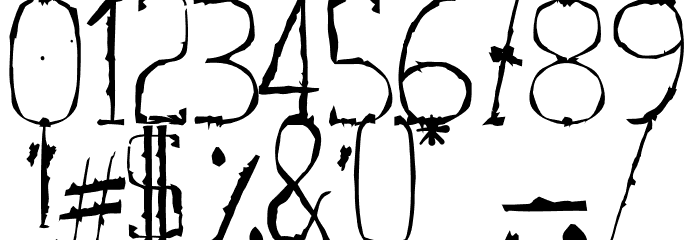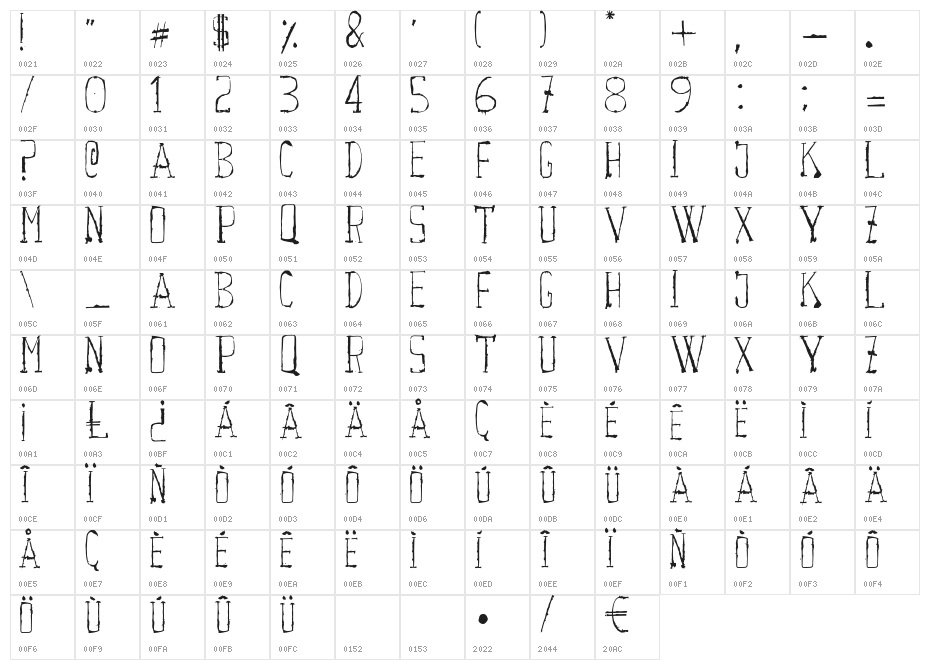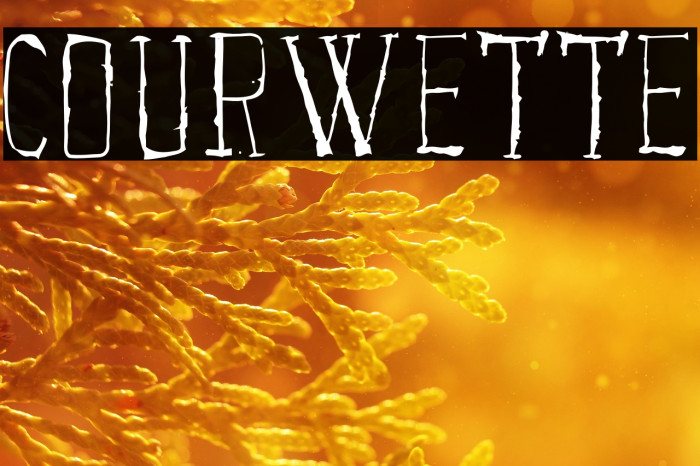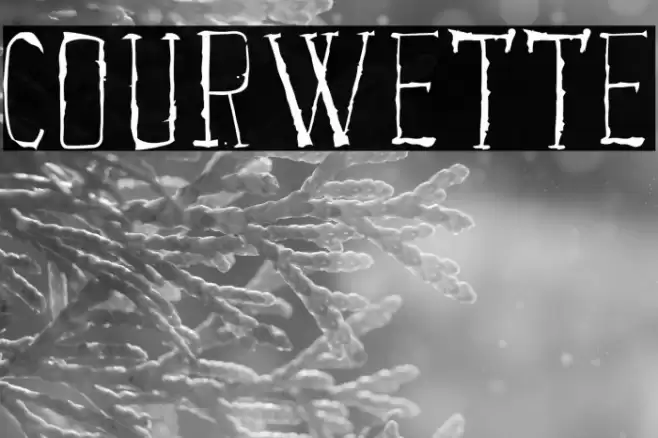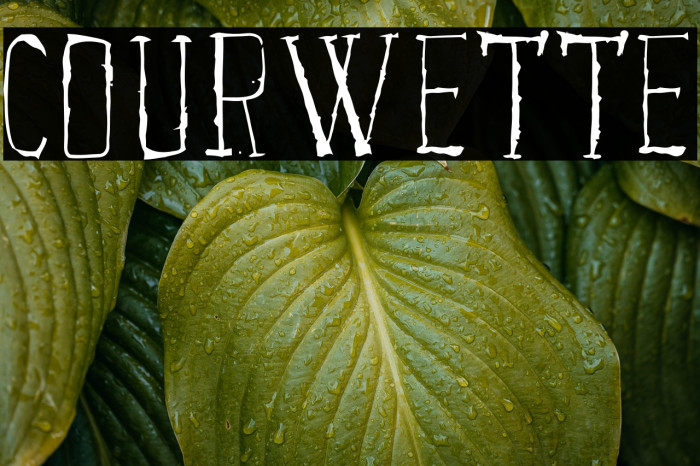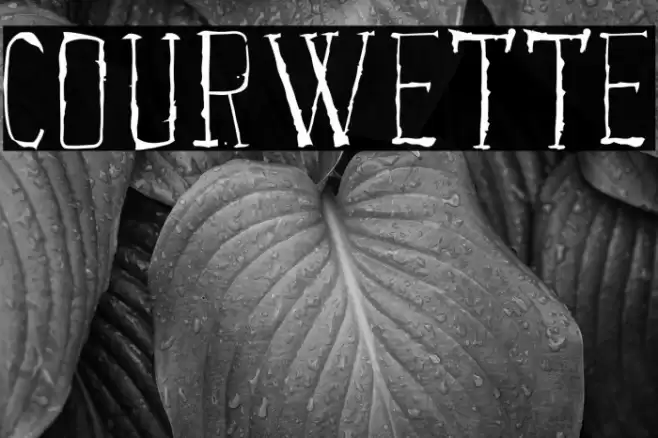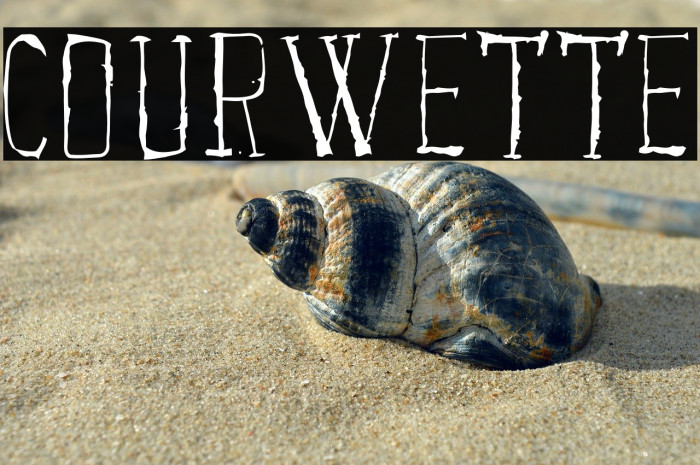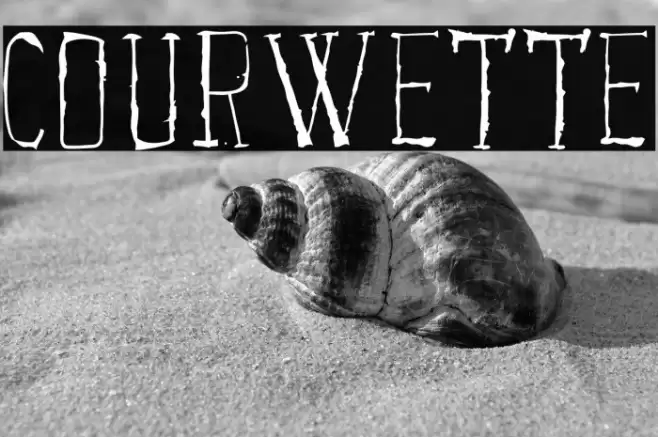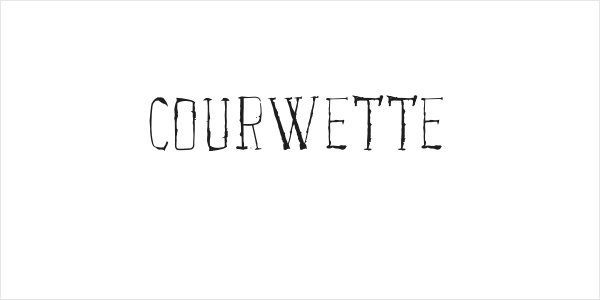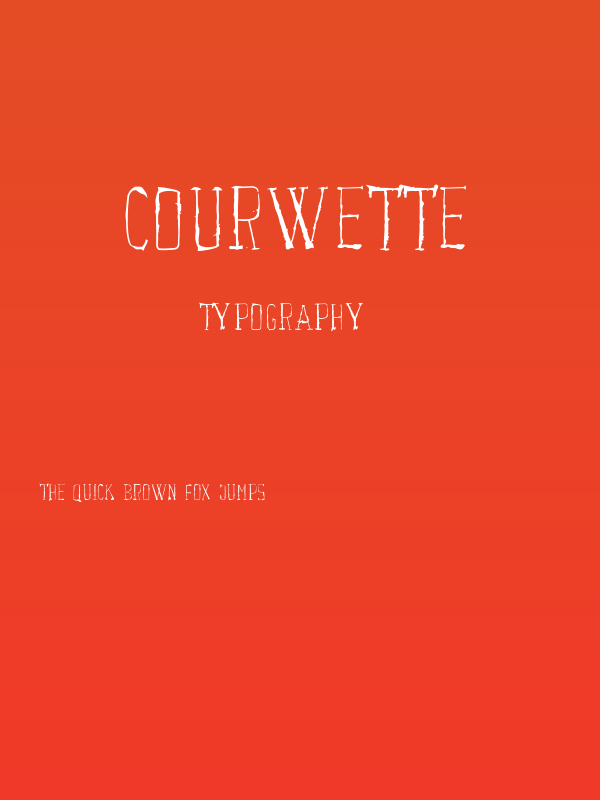
Courwette Font
Courwette Description
This font features a distinctive and artistic style with an uneven, hand-drawn appearance. The characters have a rough, textured look, giving them a rustic and organic feel. The strokes vary in thickness, adding to the font's unique charm. The uppercase letters are tall and narrow, while the lowercase letters maintain a consistent style. Numbers and special characters are designed with the same artistic flair, making this font suitable for creative projects that require a touch of individuality and character.
| Overall Style | Rustic, Artistic |
| Proposed Projects | Ideal for artistic projects, posters, album covers, and branding that seeks a unique, handcrafted look. |